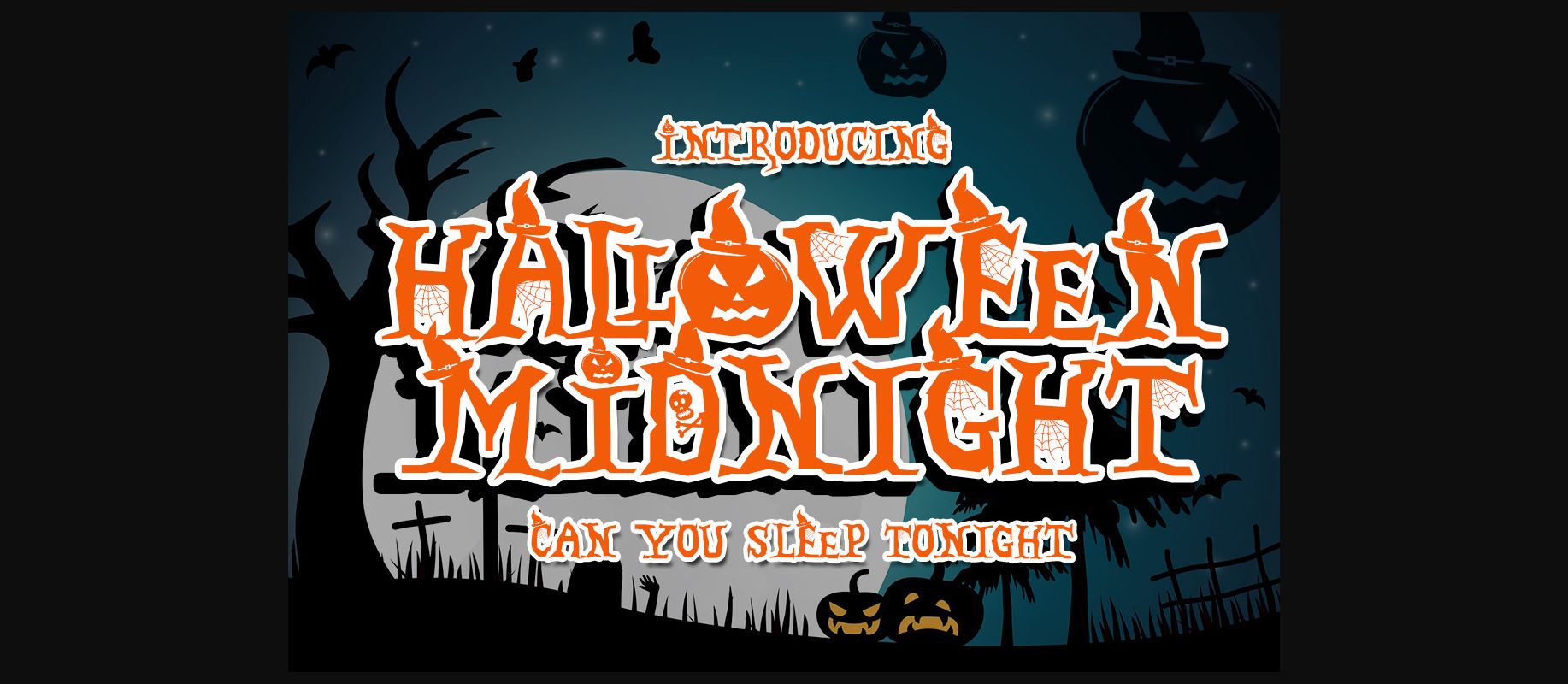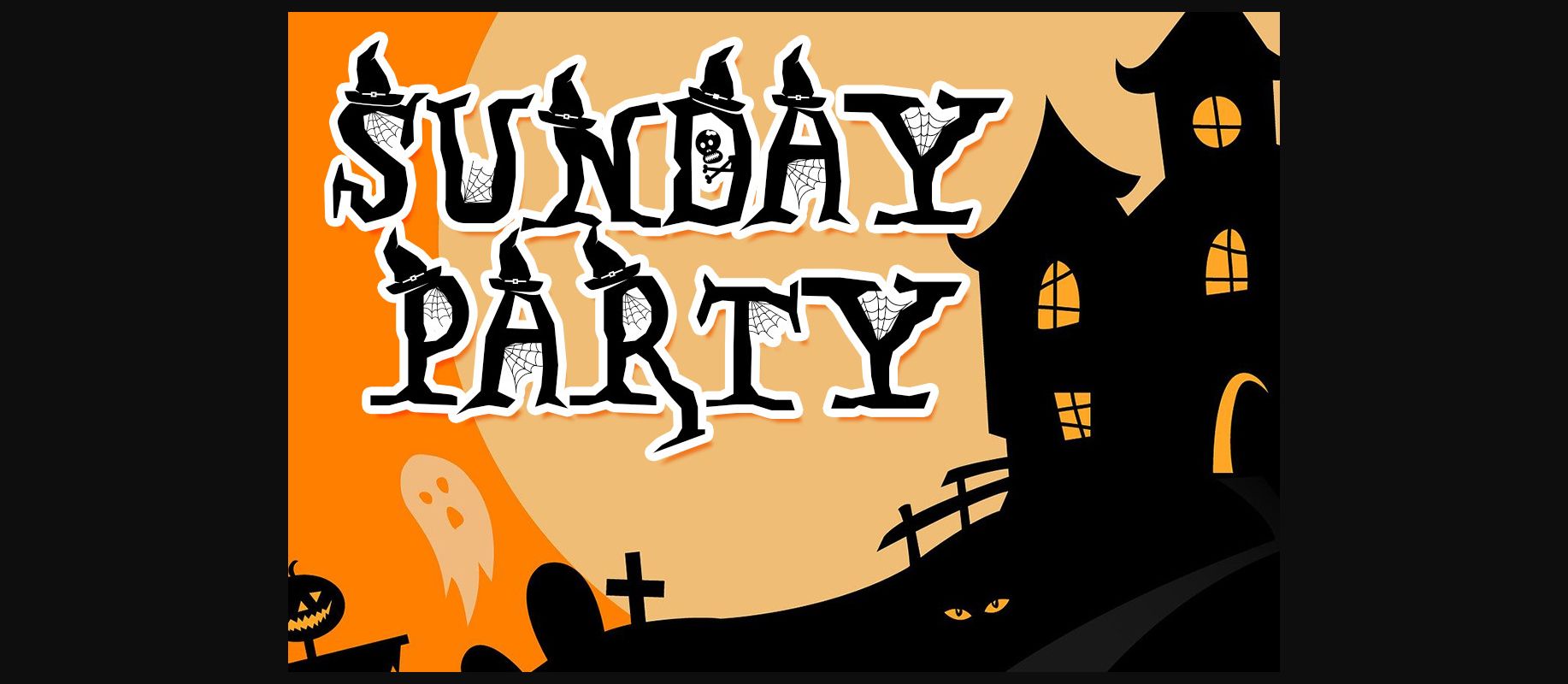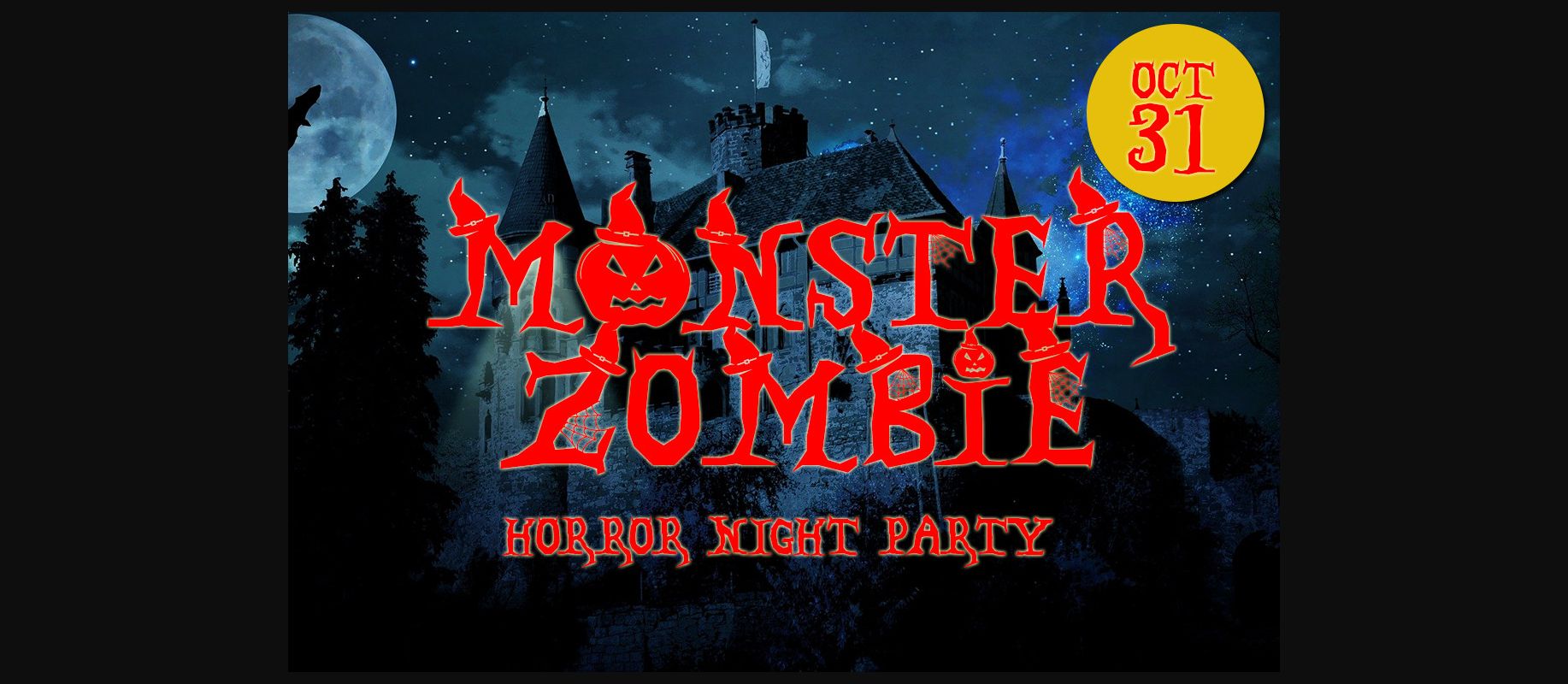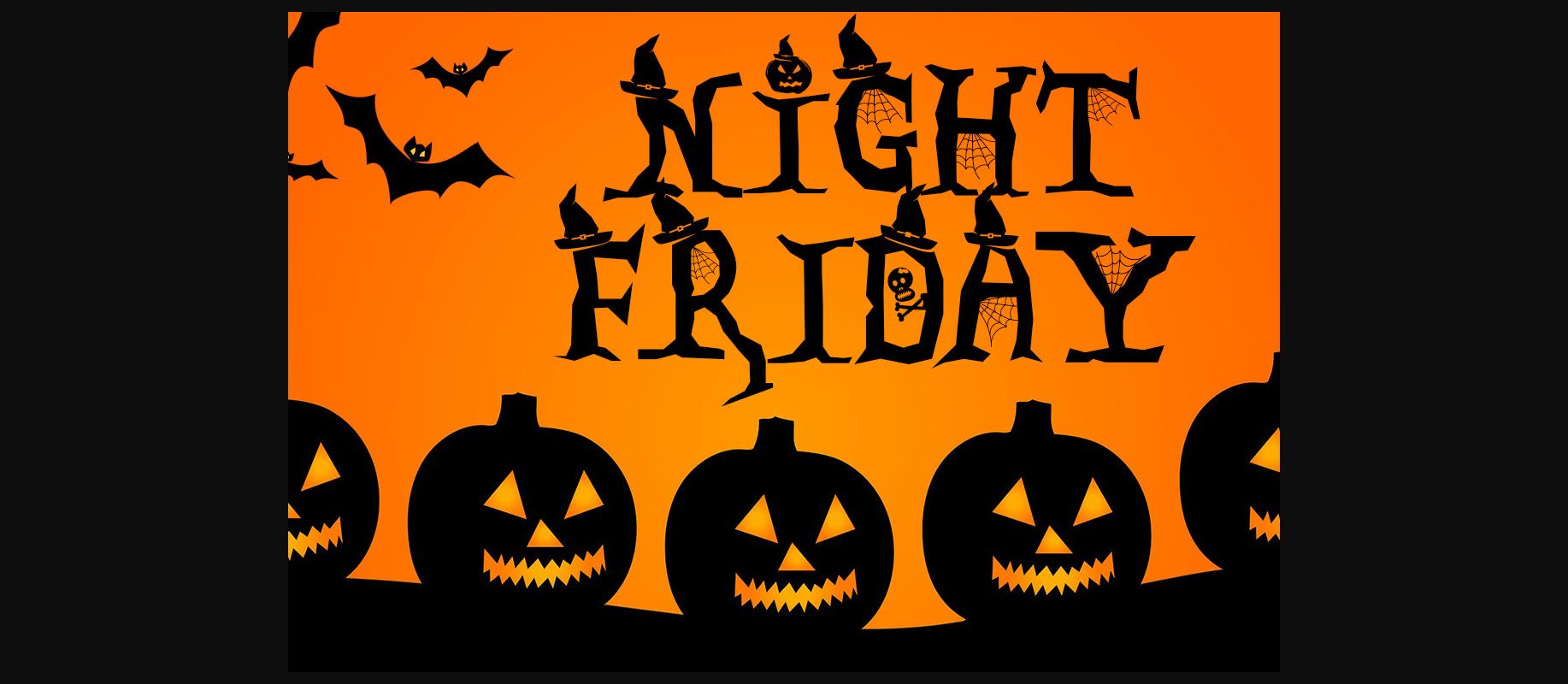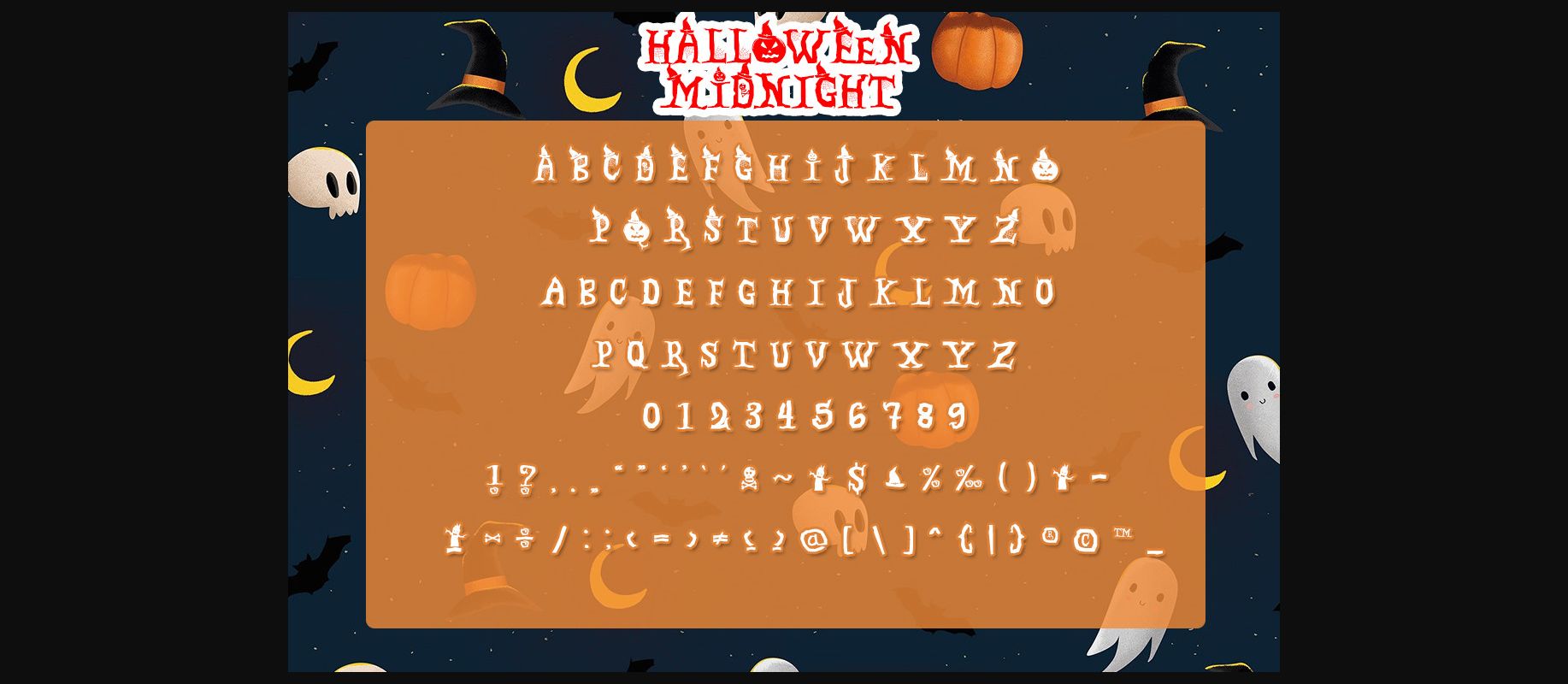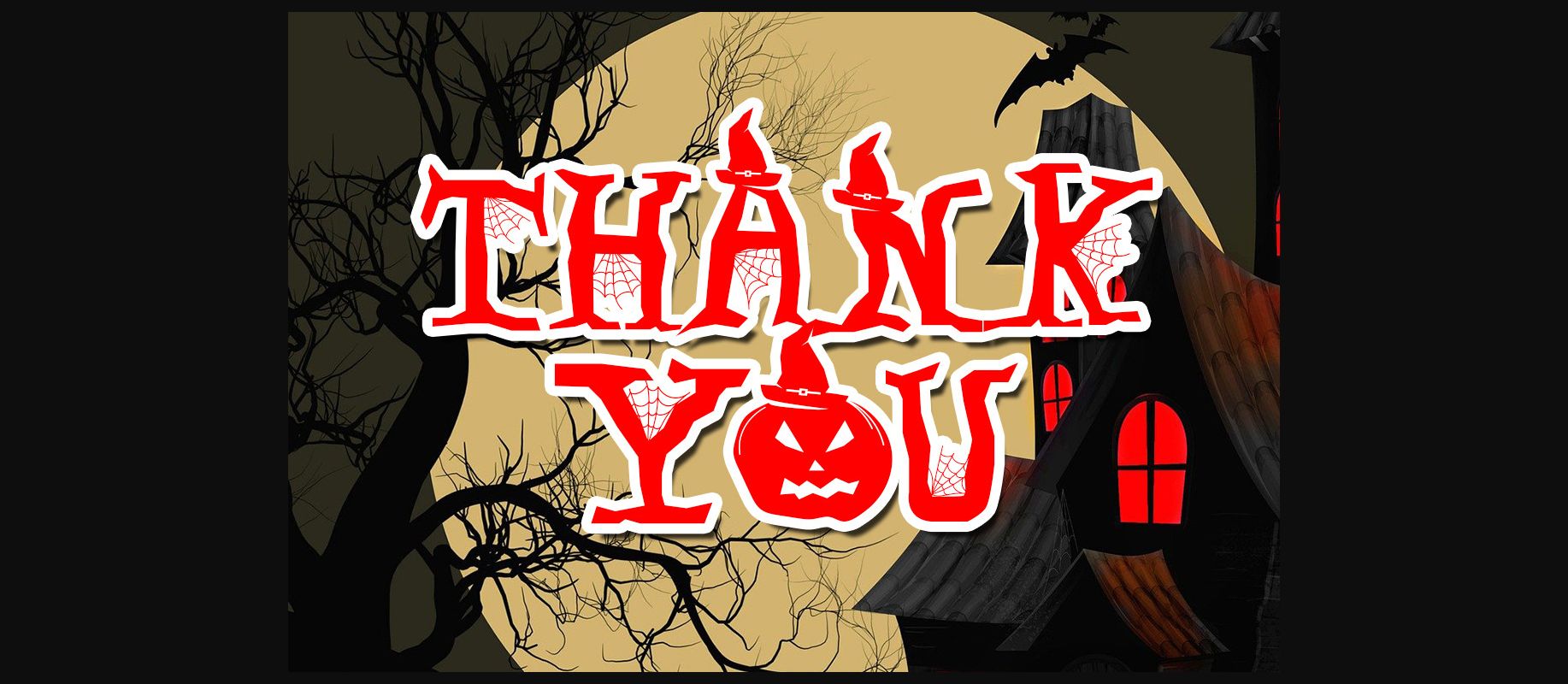
Halloween Midnight is a spooky and fun decorative font featuring spider webs and pumpkins for the full-on Halloween effect! The characters are also uniquely shaped and give off scarry vibes.